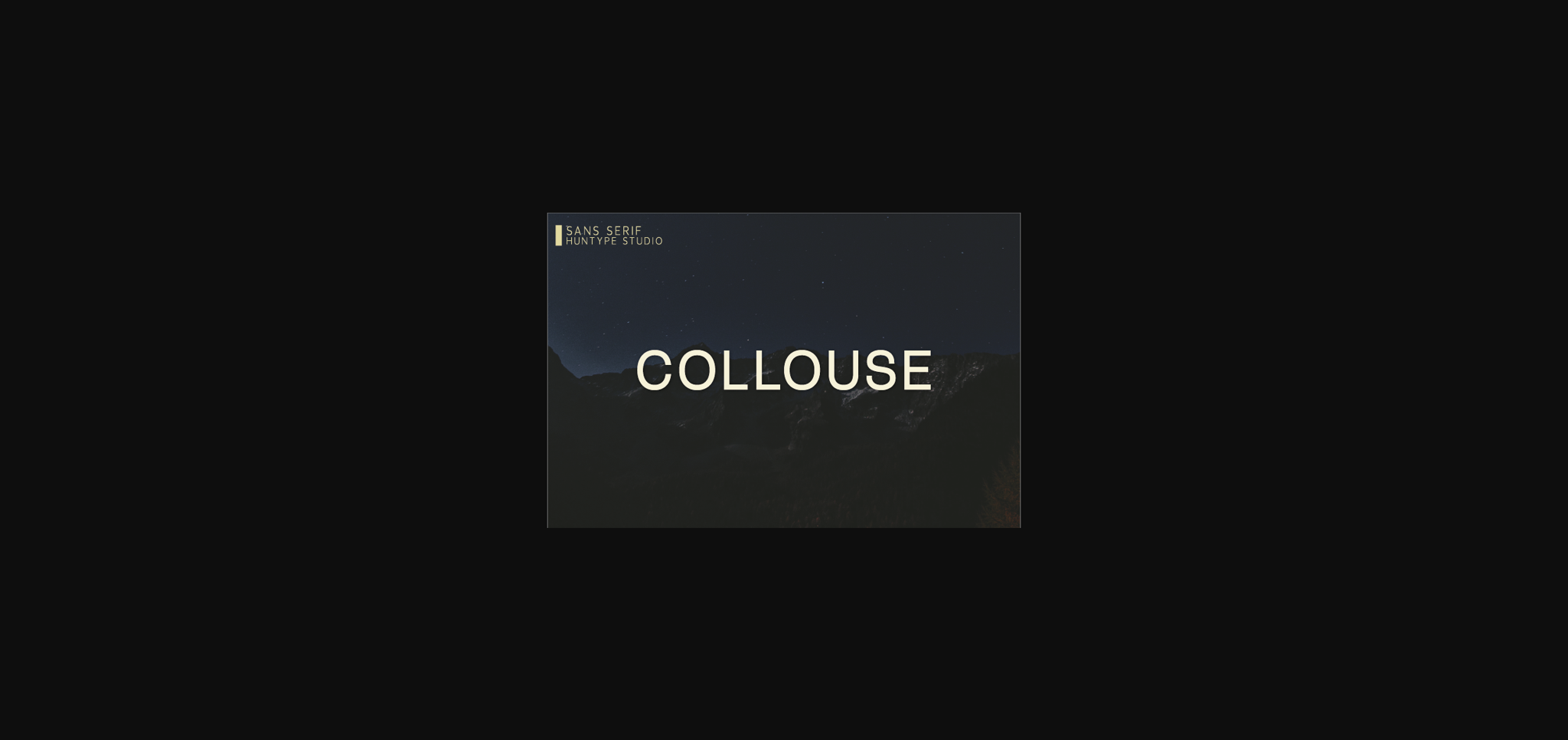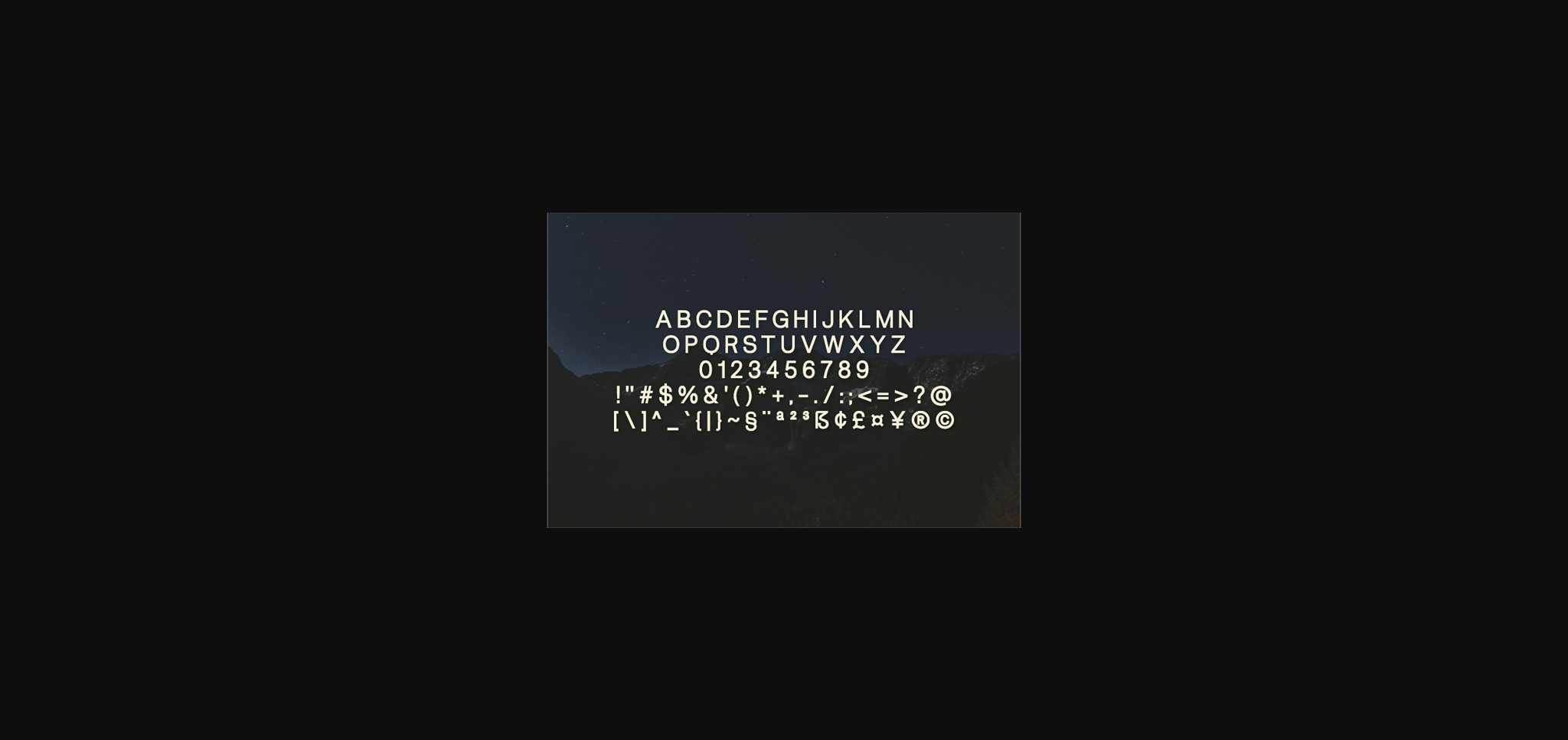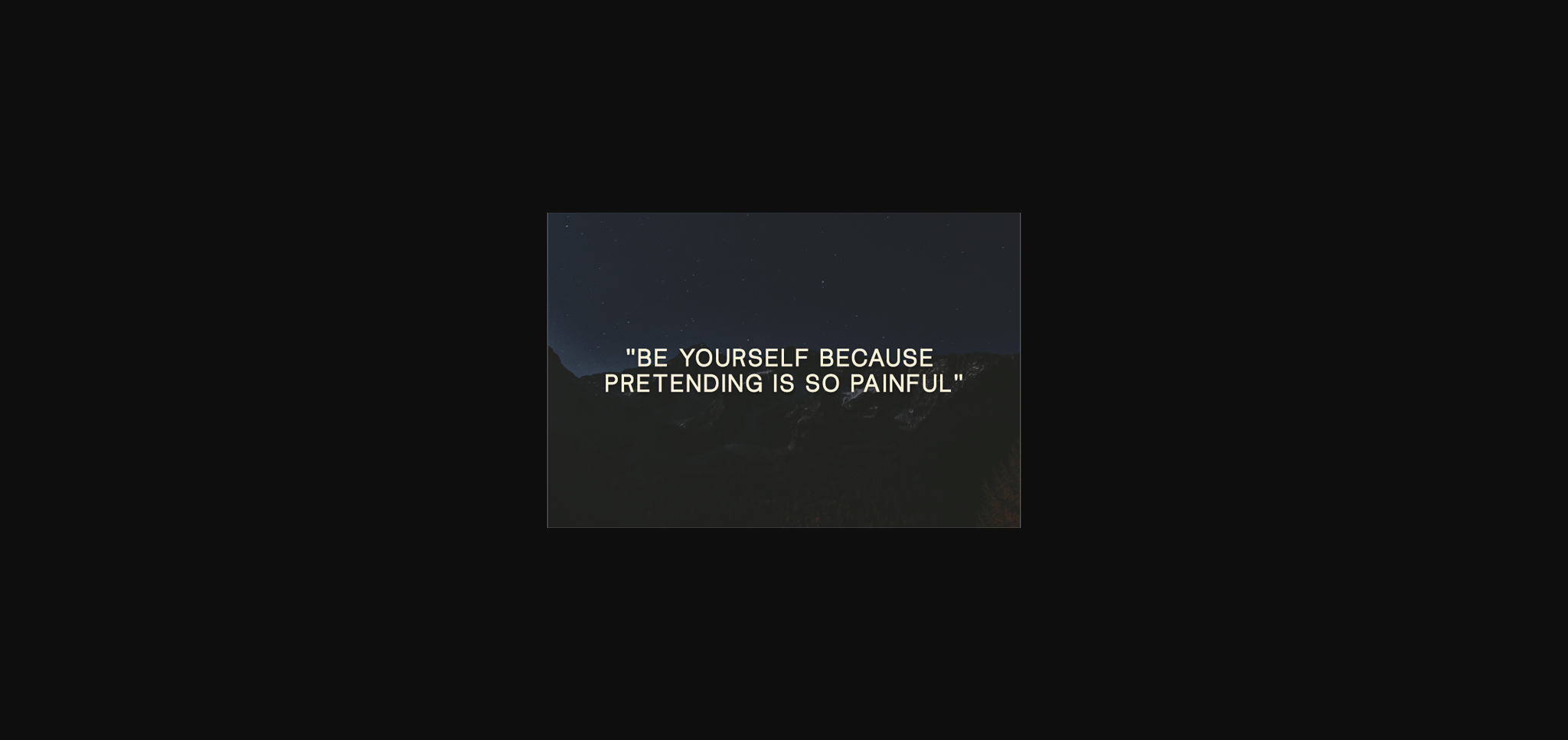
About Collouse Font
Collouse is a stylish and simple sans serif font. It has a clean, authentic and smooth vibe and it will be a hit for any design that you want to add it to.